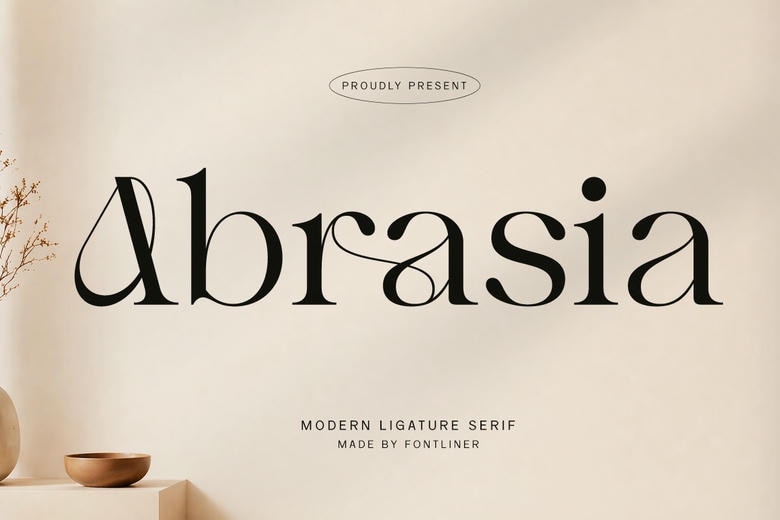
Abrasia Font
Abrasia is a ligature serif font that brings elegance, fluidity, and a touch of artistry to modern typography. Its graceful curves and refined ligatures give it a smooth, sophisticated style.
Abrasia is a great fit for high-end branding, editorial layouts, fashion campaigns, and luxury packaging. Its polished, premium look stands out. The expressive ligatures let designers create rich, custom typography, making it ideal for logos, magazines, beauty brands and personality.
Abrasia Serif Font